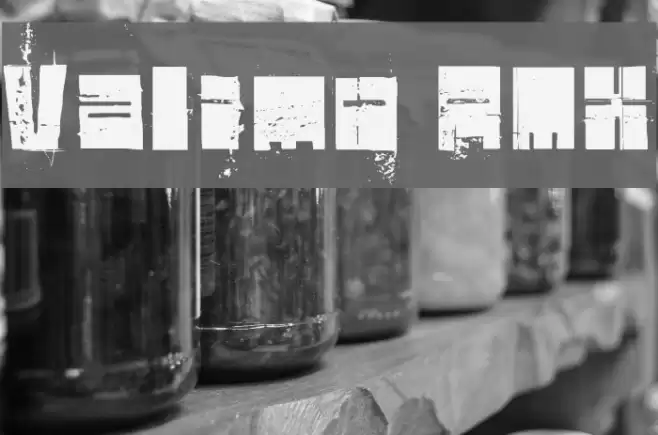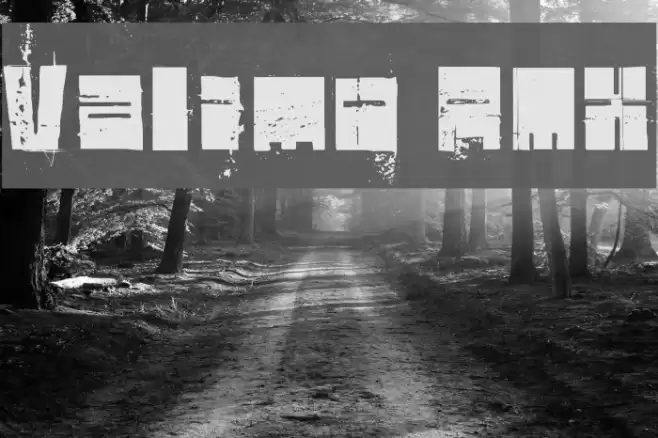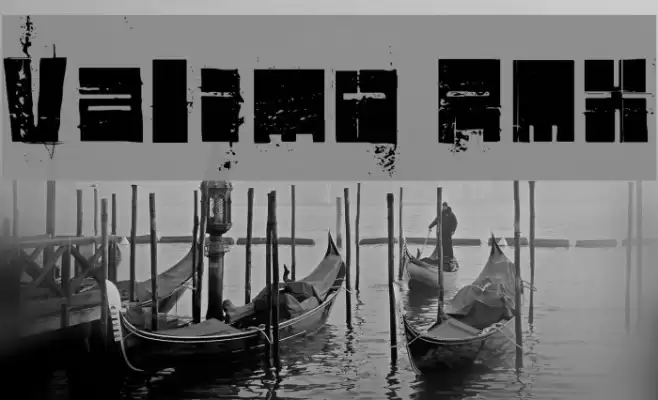
Valimo RMX Font
Valimo RMX Description
This font features a bold, distressed style with a grunge aesthetic. Each character appears as if it has been weathered or eroded, giving it a rugged and edgy appearance. The blocky, geometric shapes of the letters are consistent throughout, creating a uniform yet dynamic look. The texture adds a layer of depth and interest, making it stand out in any design. The uppercase and lowercase letters maintain the same stylistic elements, ensuring cohesion across different text cases. The numbers and special characters are equally bold and textured, fitting seamlessly with the alphabetic characters.
A bold, distressed font with a grunge aesthetic and geometric shapes from Uncategorized fonts.
- Proposed Projects: Ideal for album covers, posters, streetwear branding, or any project needing a gritty, urban feel.
- Overall Style: Grunge, Urban, Edgy